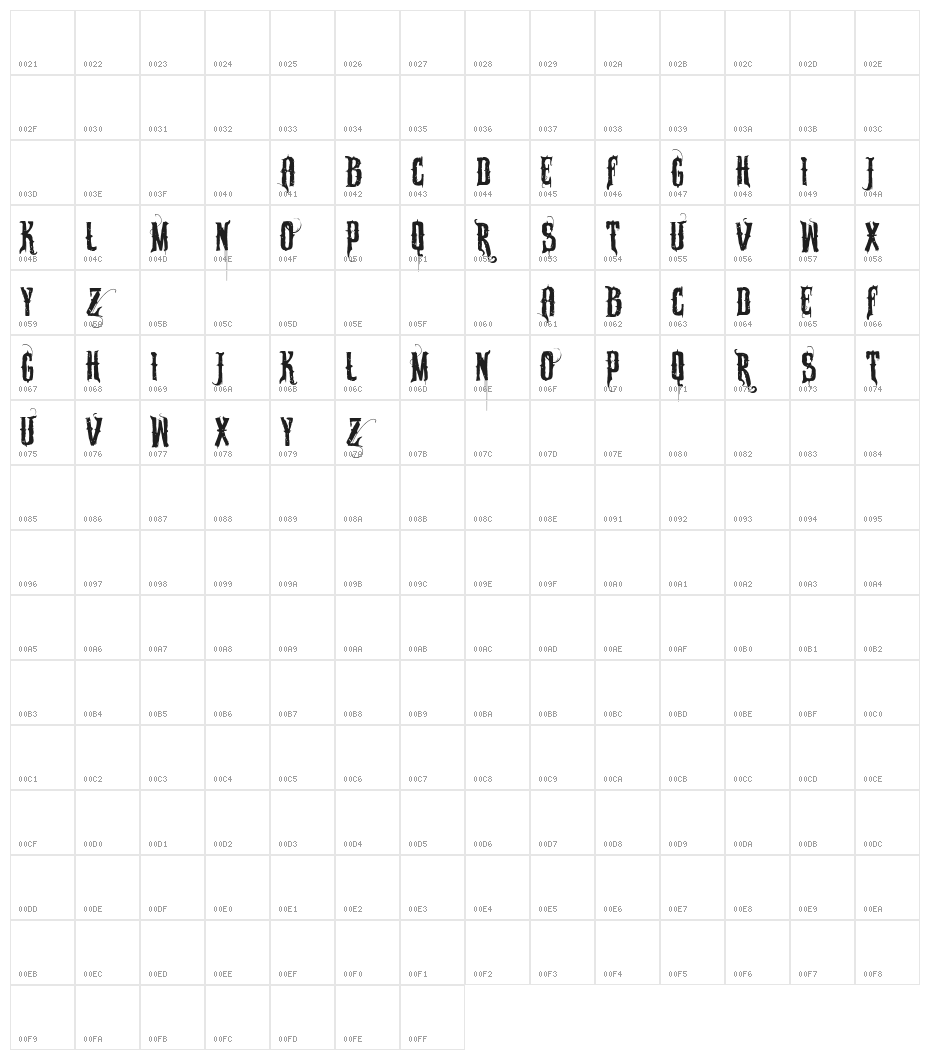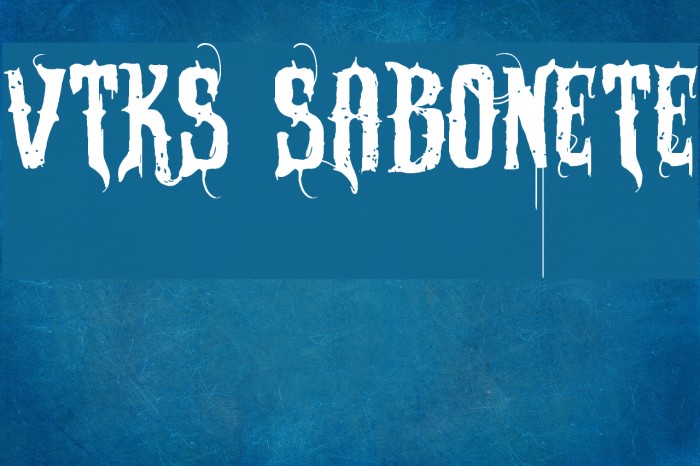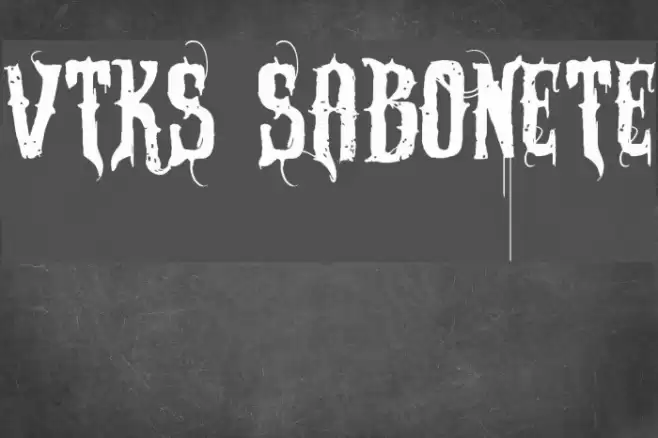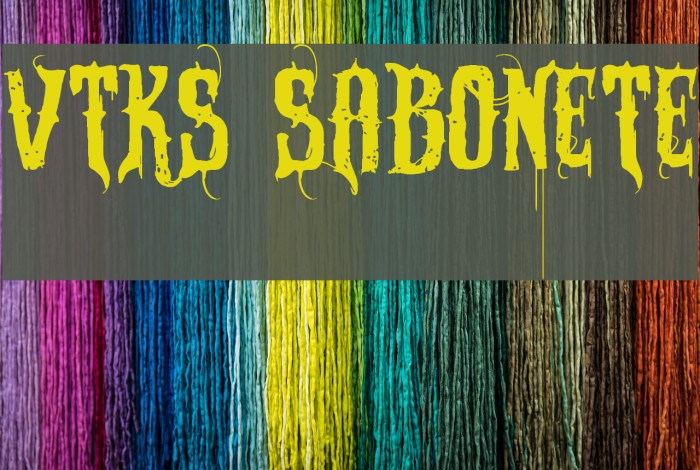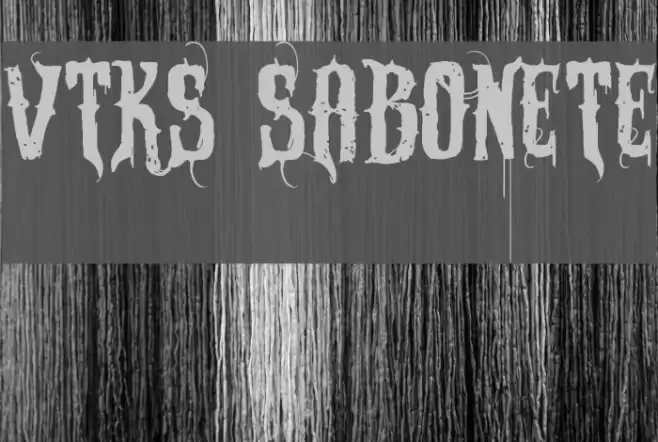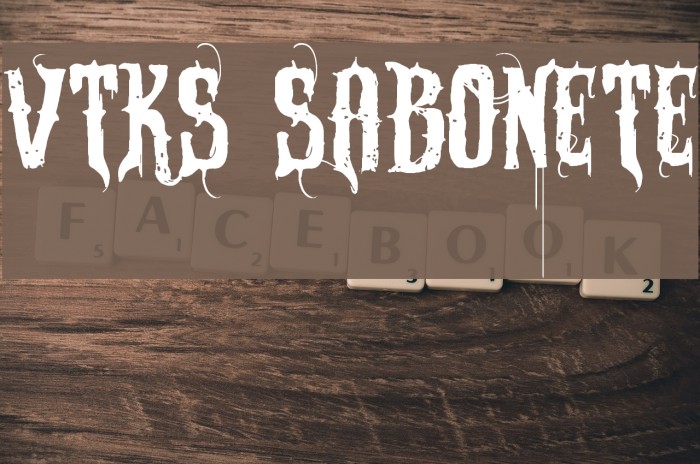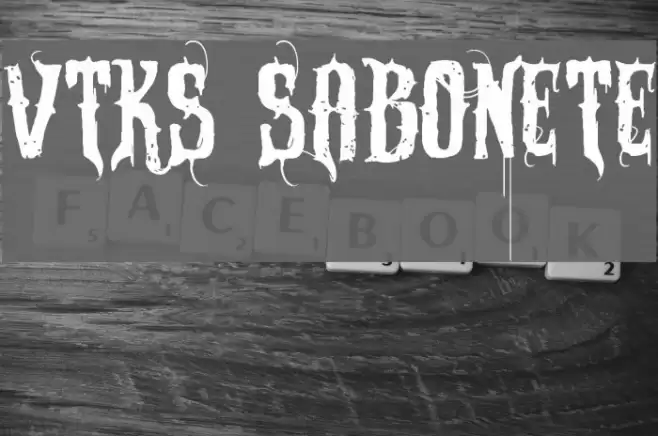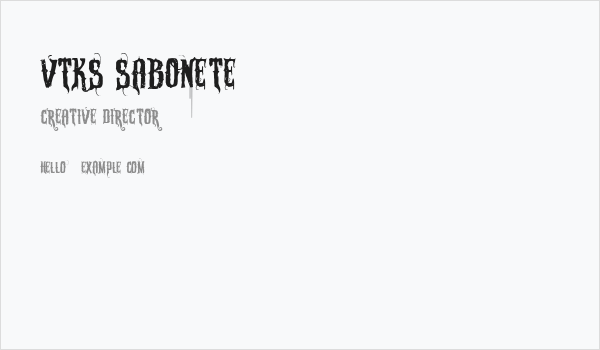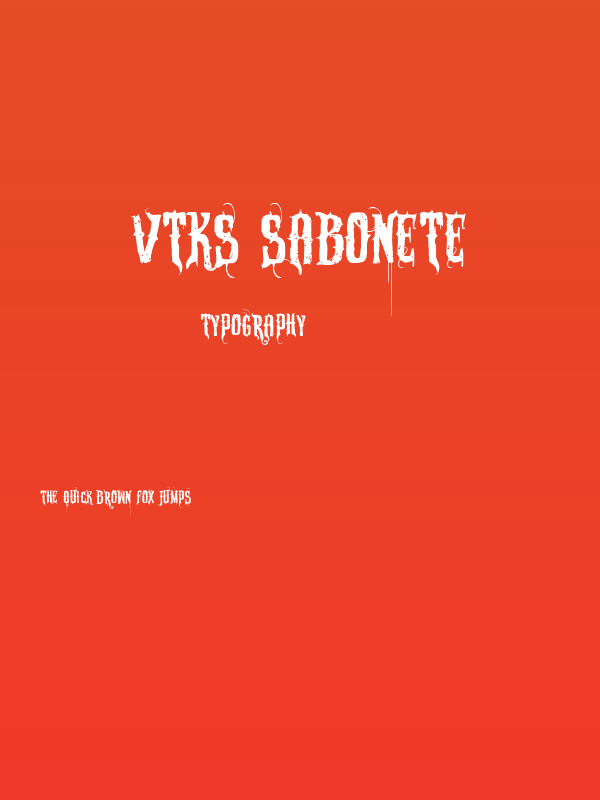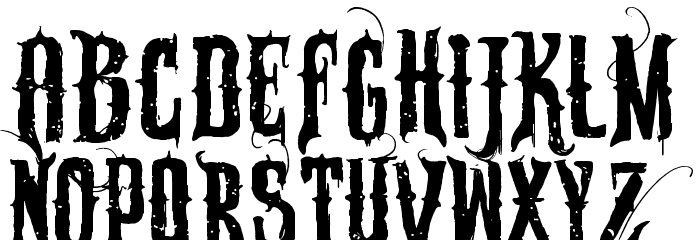
VTKS SABONETE Font
VTKS SABONETE Description
This font features a bold, decorative style with a distressed, grunge-like appearance. The characters are adorned with unique, intricate details that give them a vintage and somewhat gothic feel. The letters are tall and narrow, with sharp edges and occasional flourishes that extend beyond the main body of the characters. This design creates a dramatic and eye-catching effect, making it suitable for projects that require a strong visual impact. The font's distressed texture adds an element of ruggedness and character, enhancing its overall aesthetic appeal.
Overall StyleVintage, Gothic, Decorative
Proposed ProjectsIdeal for posters, album covers, event flyers, and branding that requires a bold, dramatic look.